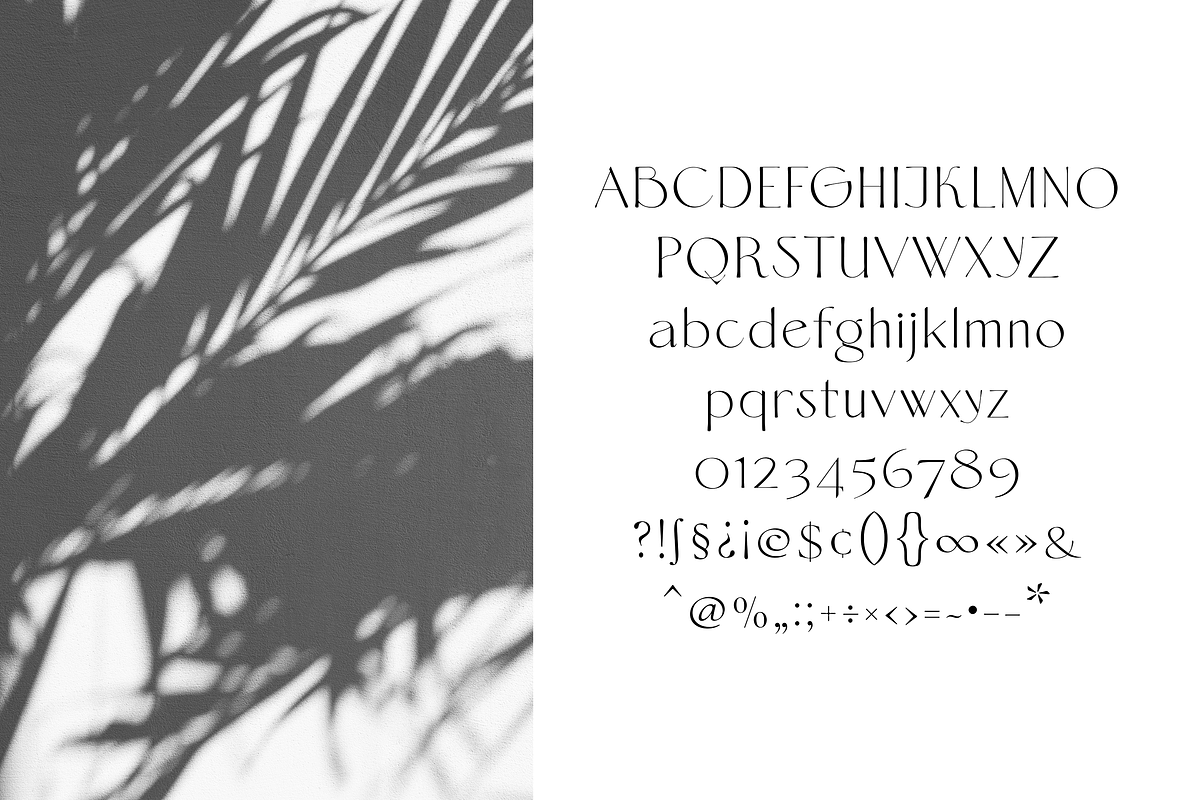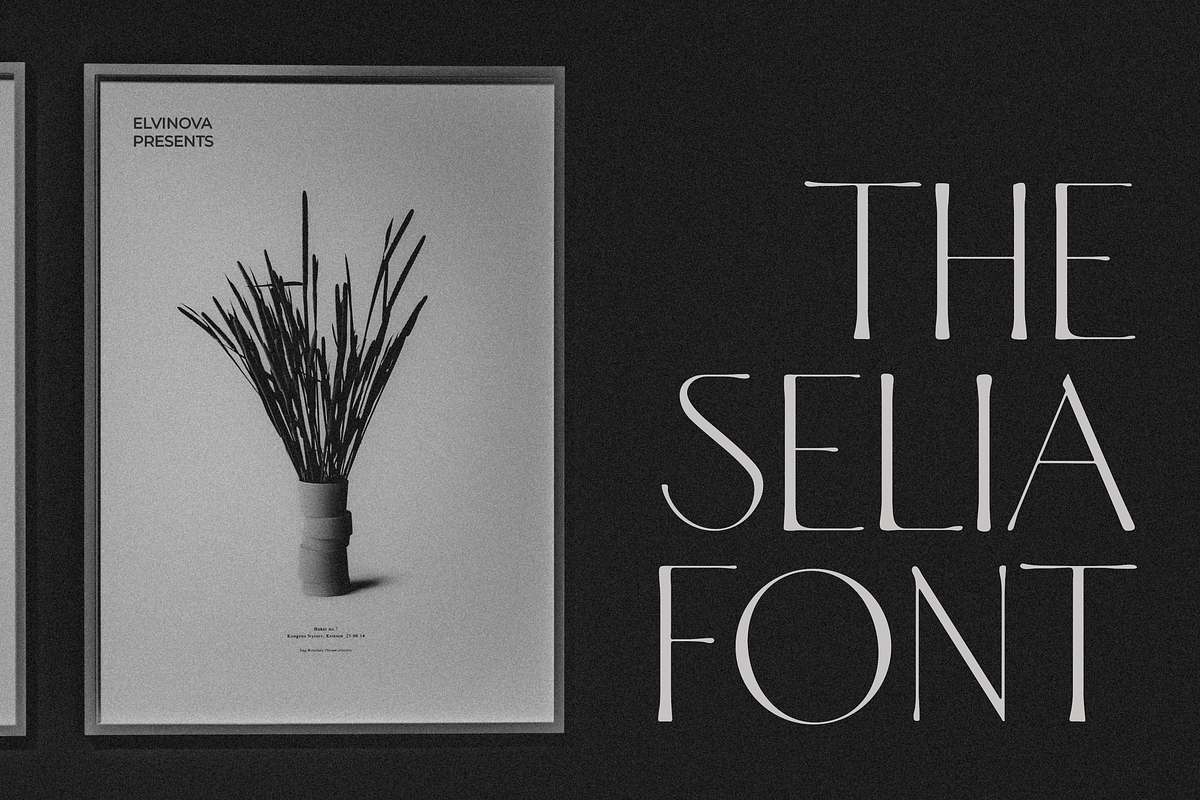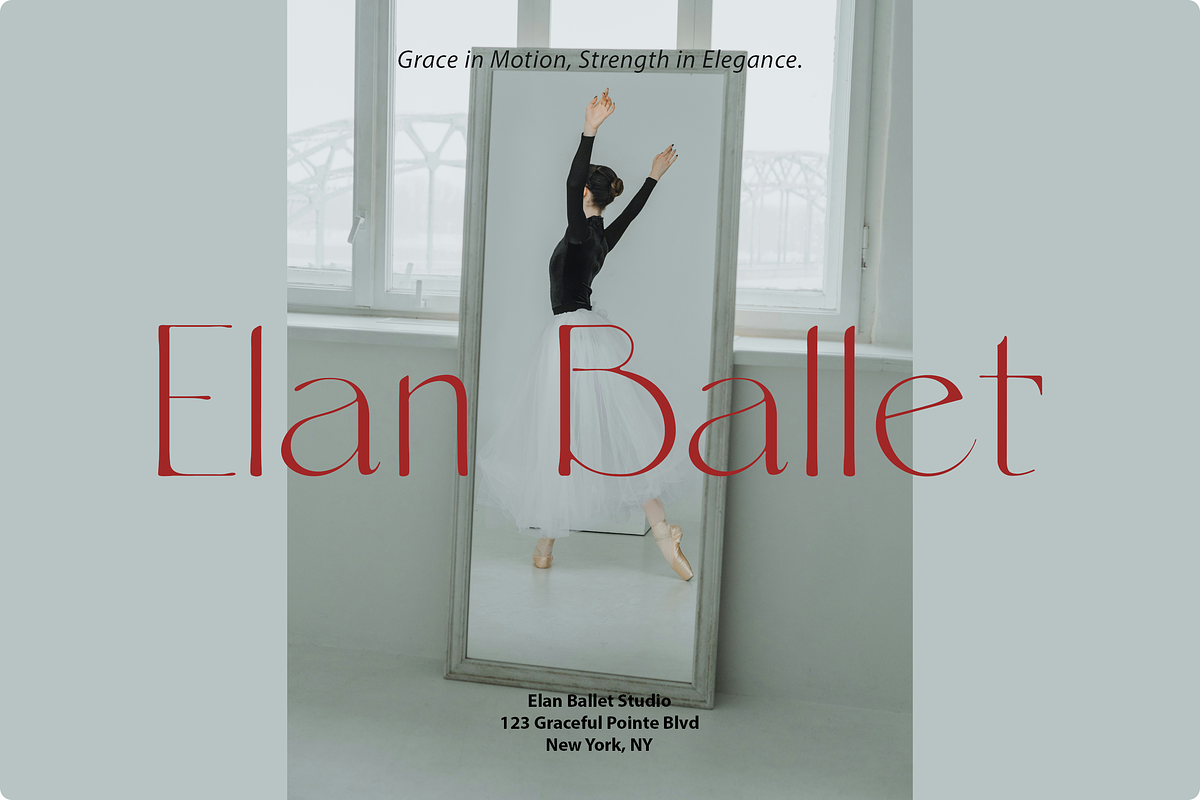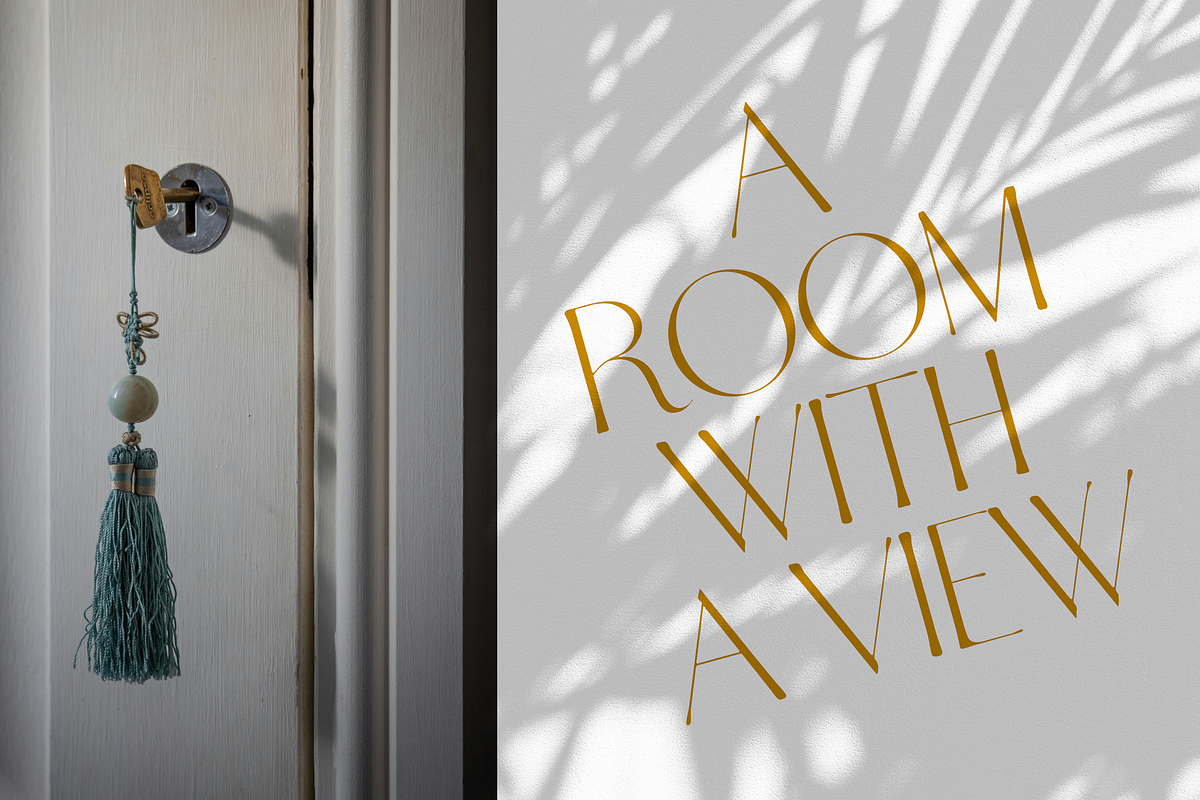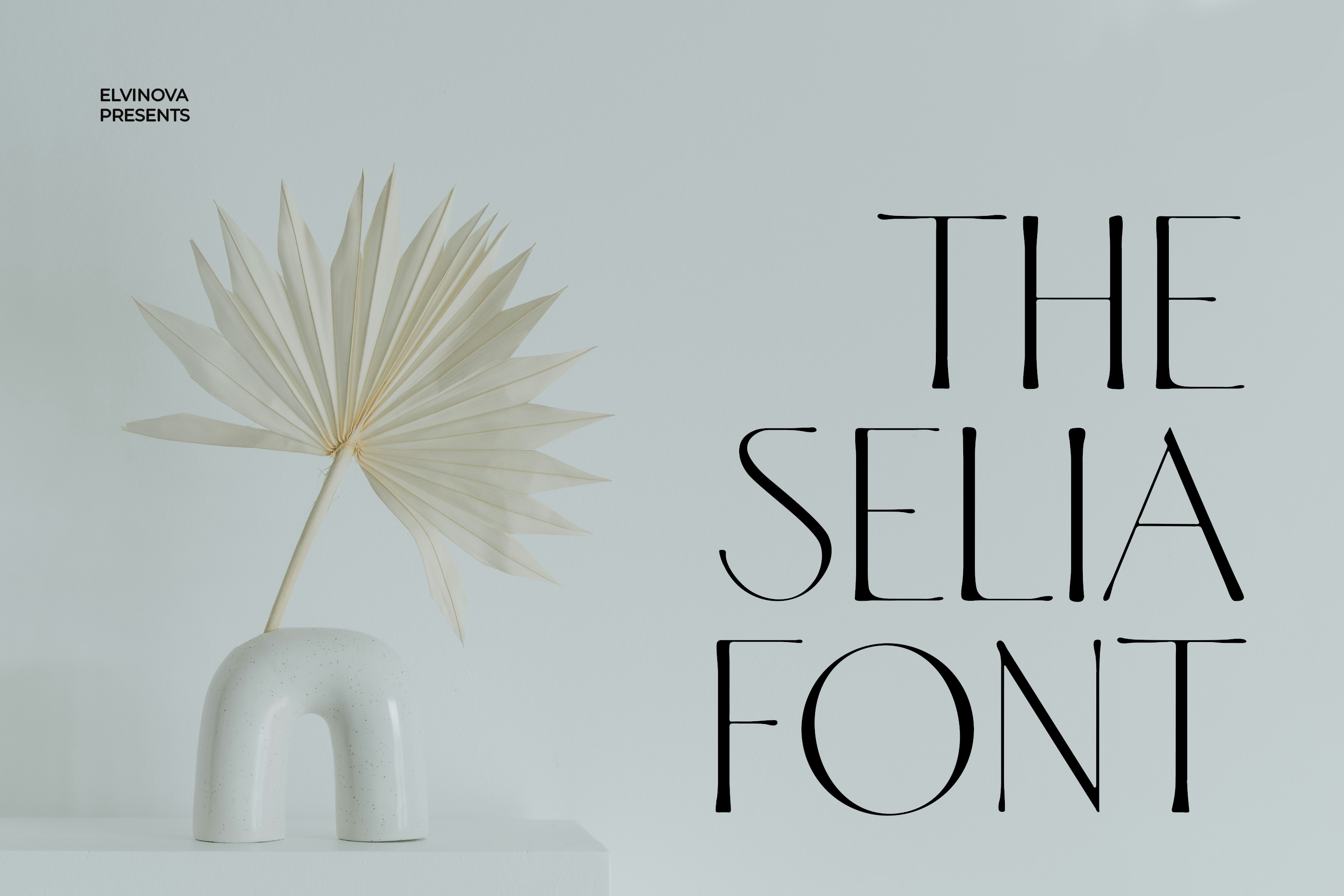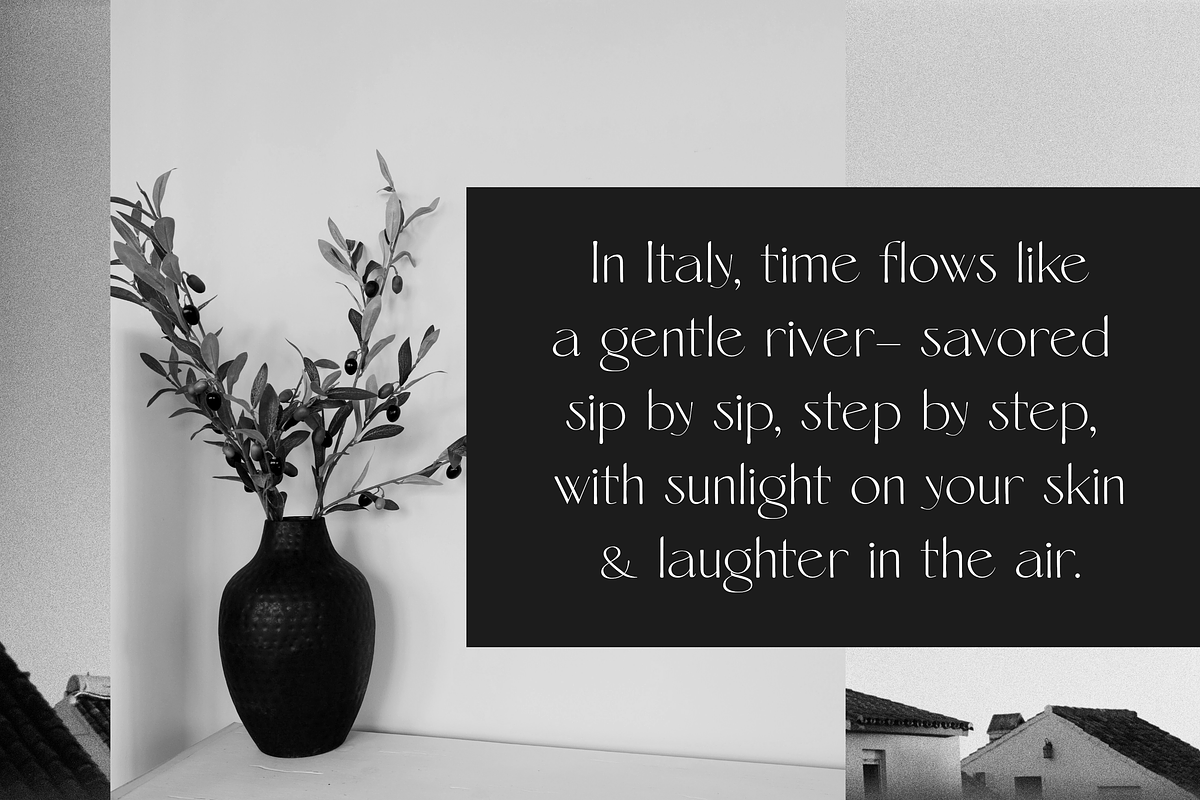
Selia Organic Font
Selia is a delicate antique-style font with an organic, imperfect charm. Feminine and elegant, it feels handmade and timeless. Perfect for artistic and chic designs.